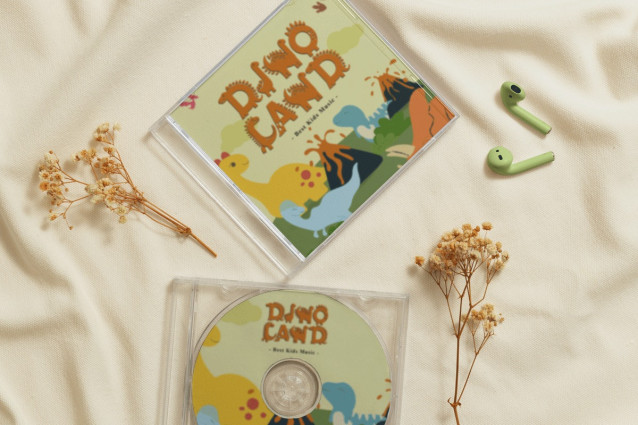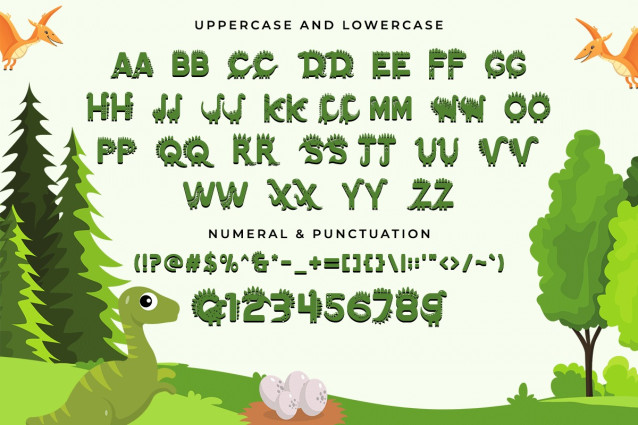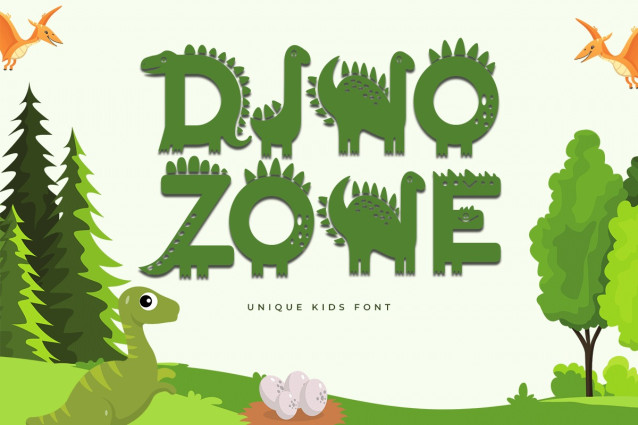
Dino Zone Font
Dino Zone Decorative Kids Font The Display typeface, Dino Zone Decorative Kids Font features font design elements that appeal to both children and people who view it. Each letter in this font is difficult to distinguish. You can see it cute from far or close. Dino Zone Decorative Kids Font is formed from the bodies of dinosaurs. This font looks like a carving. This font is legible. This typeface is the best font for children’s supplies, such as baby items, school supplies, children’s clothes, and water bottles. The Dino Zone Decorative Kids Font can be used on roadside posters and billboards containing promotions or product announcements about children. This font is used on book and magazine covers. This font is best suited for writing short sentences or words because it looks simple and clean. Can be used as drink packaging and cellphone casing. The Dino Zone Decorative Kids Font can be used as a digital font and is suitable for animated videos, titles, or subtitles that appear in the intro to write a thank you note outside the video. This font can be included in cartoons and fairy tales. Of all these explanations, the Dino Zone Decorative Kids Font is the best children’s font. Our display font collection is compatible for use as; Figma Fonts, Canva Fonts, Freepik Fonts, and Adobe Fonts. They also function as Windows Fonts and Apple Fonts. For your social media needs, you can use and install fonts in our Espot & Futuristic font collection to use as Instagram Fonts, Facebook Fonts, and Twitter Fonts.